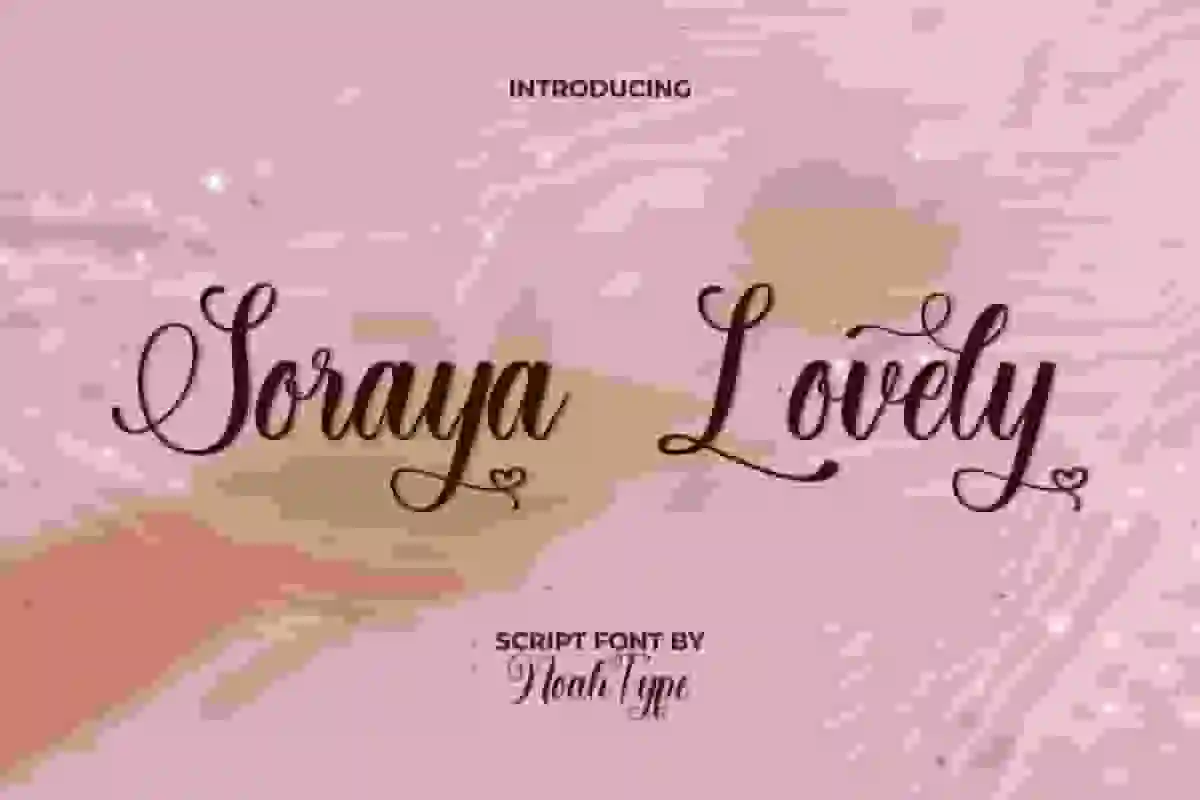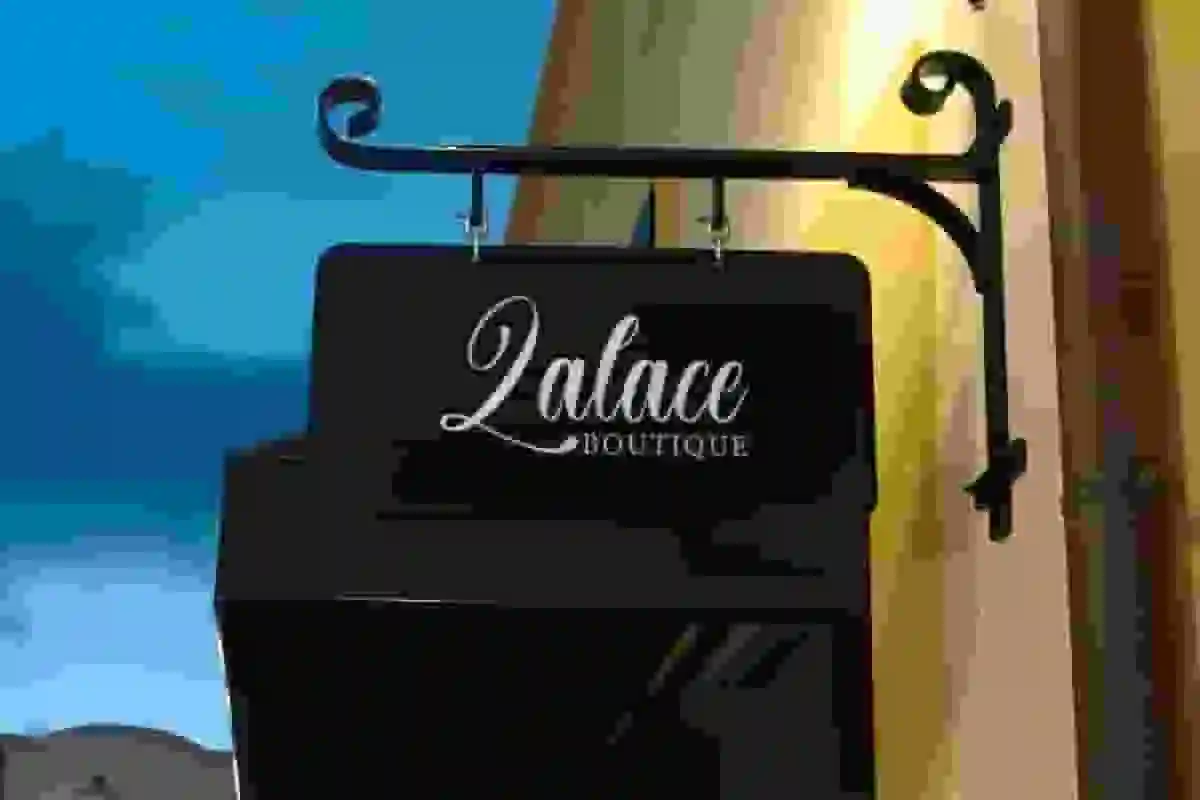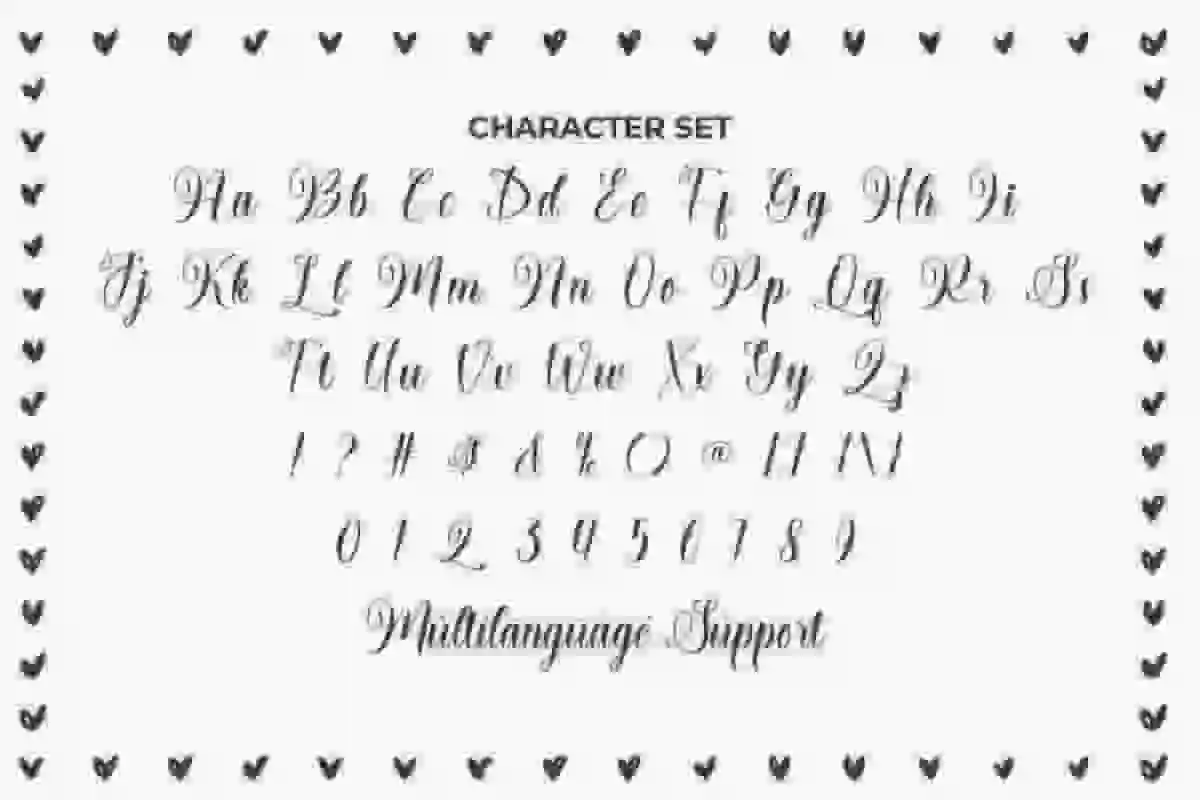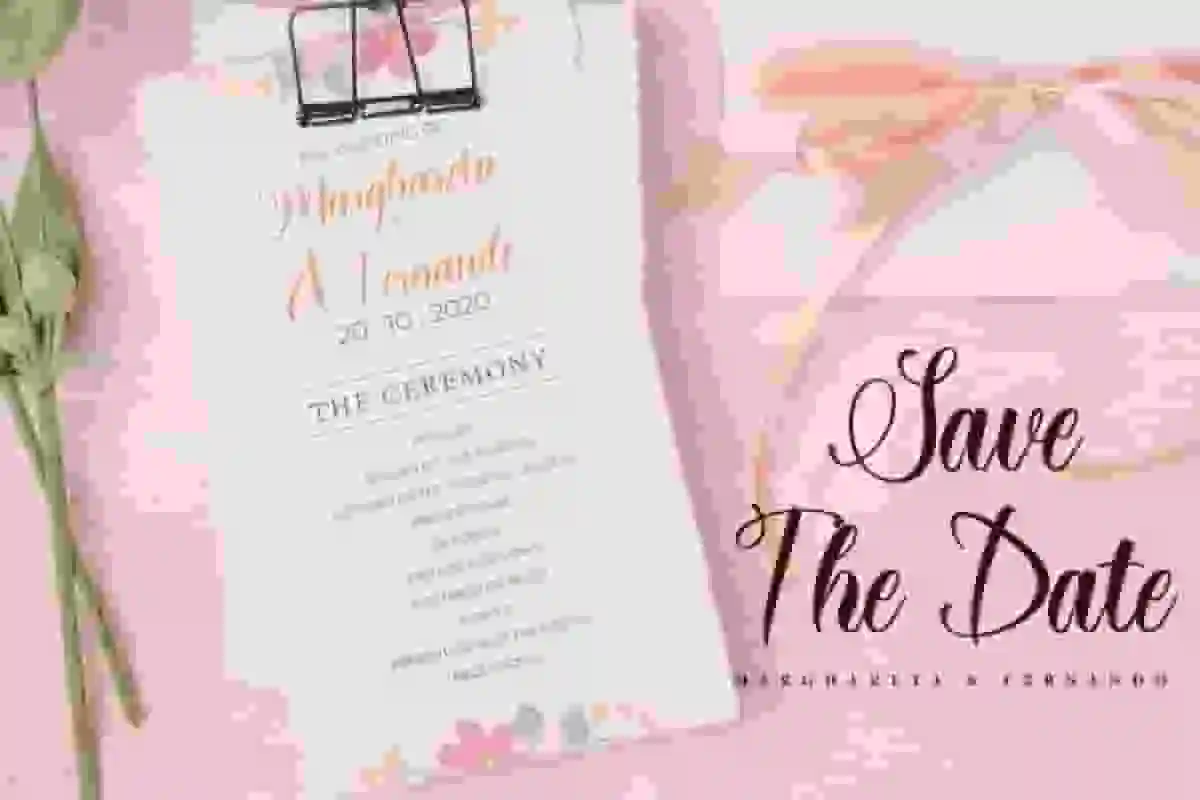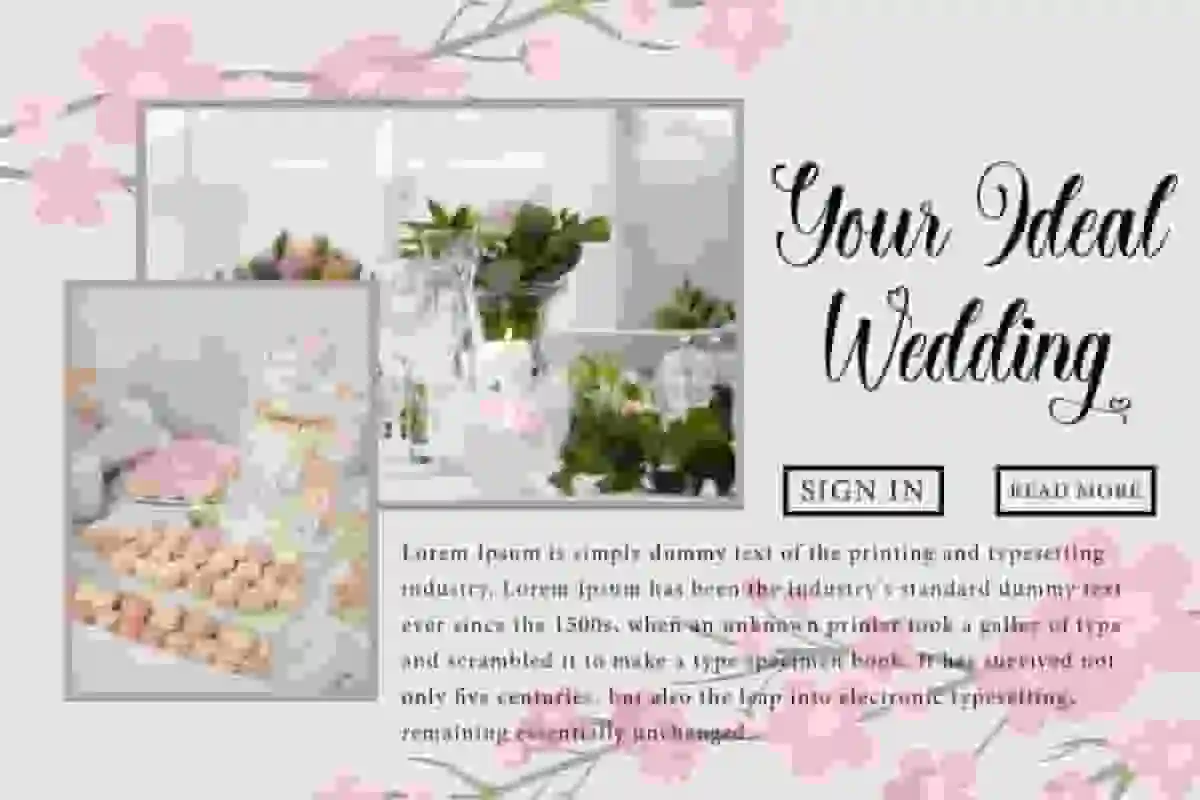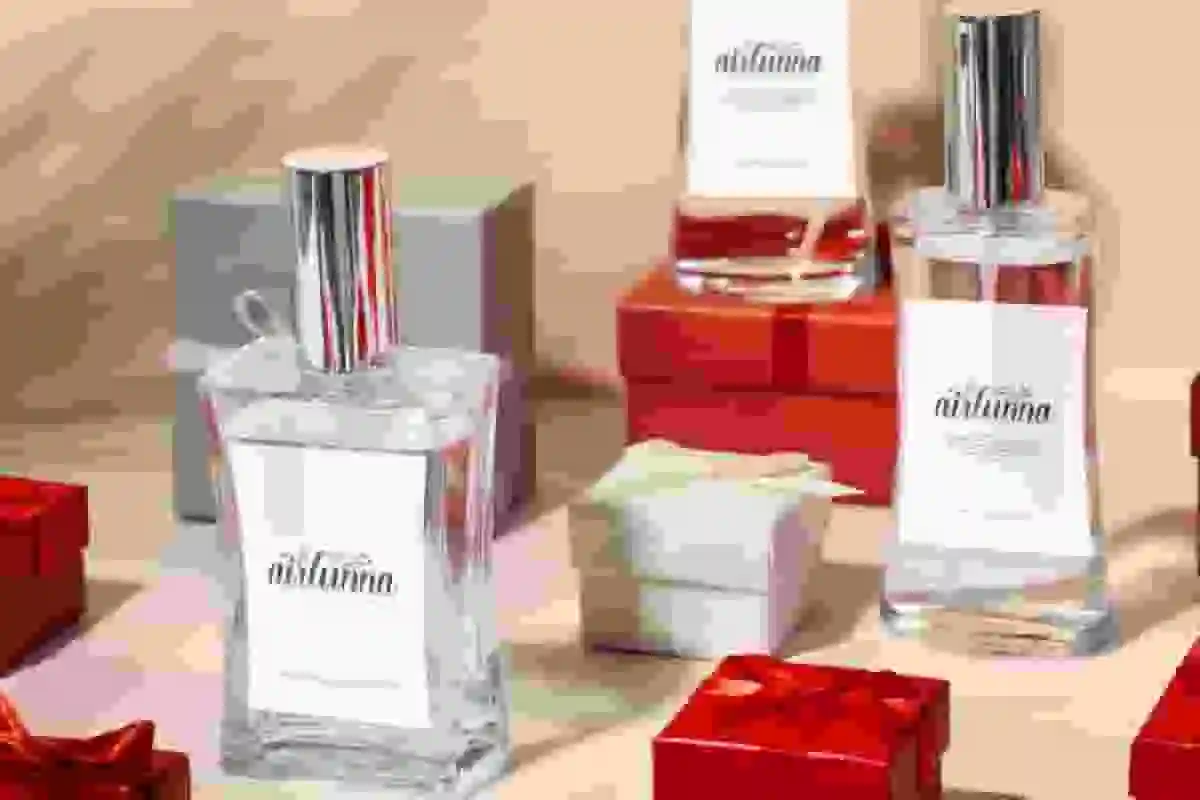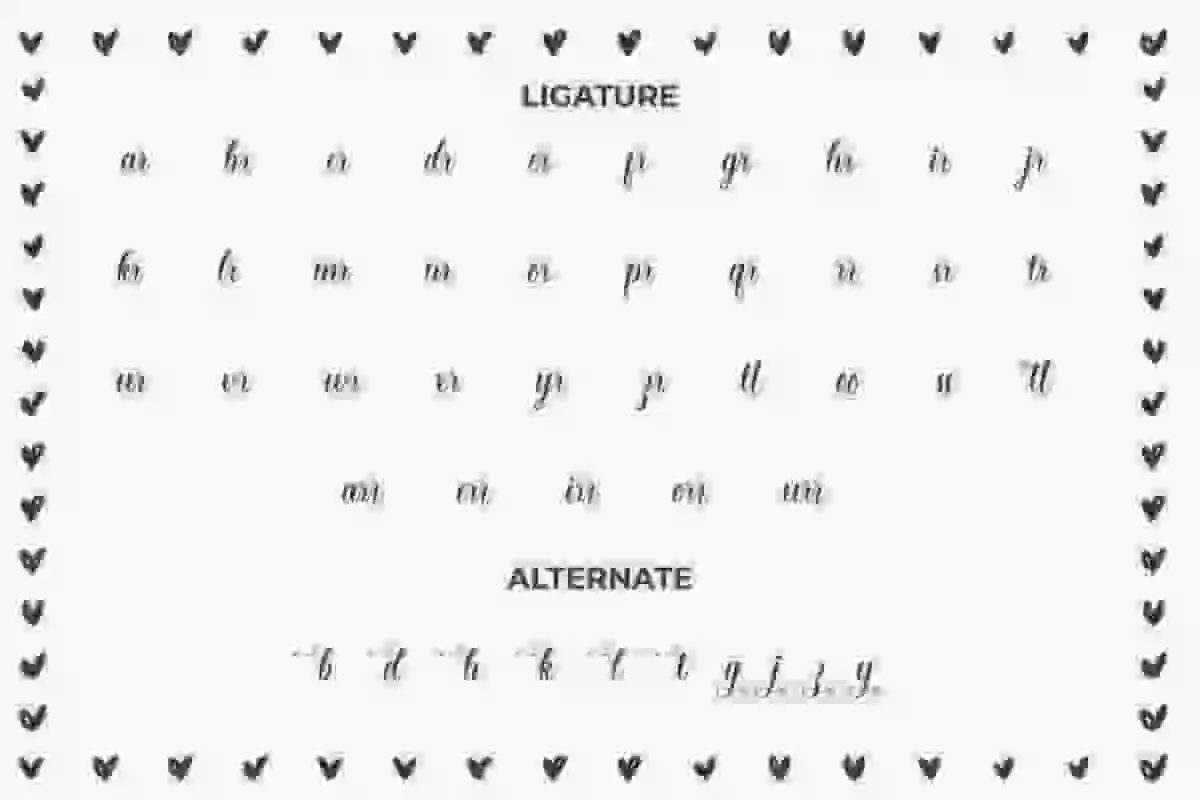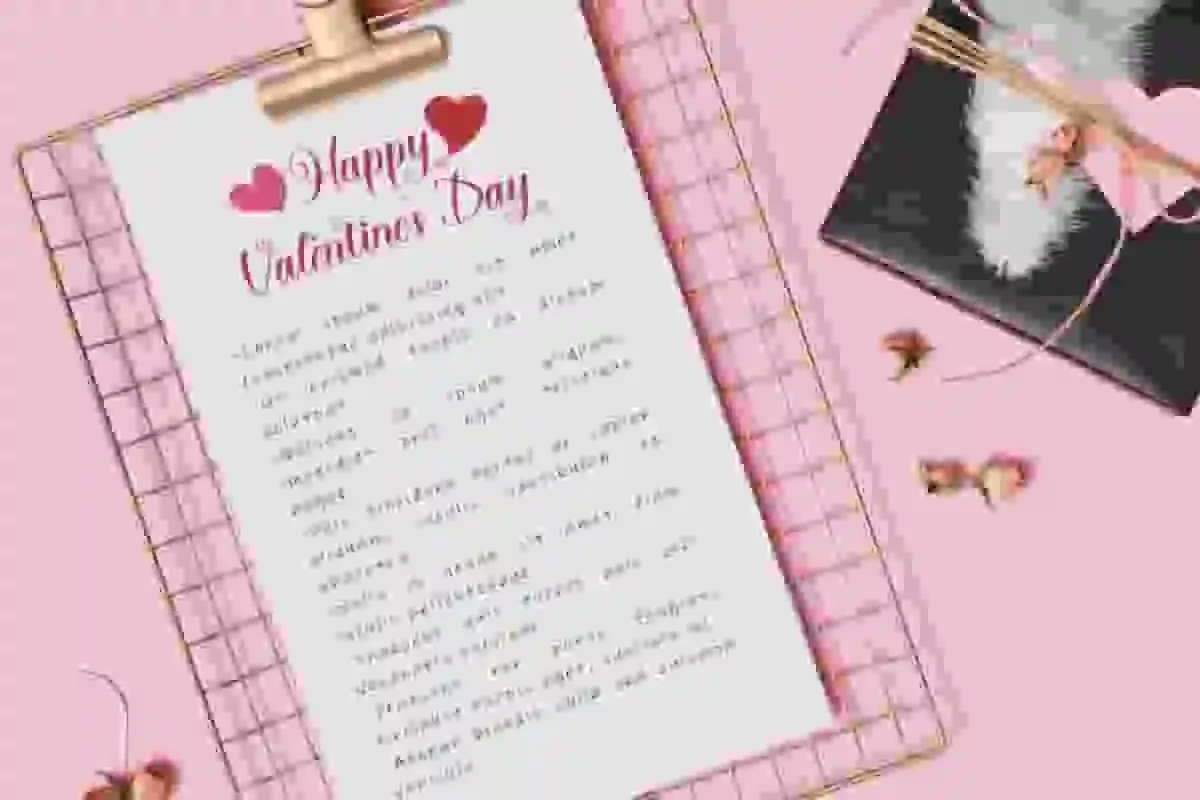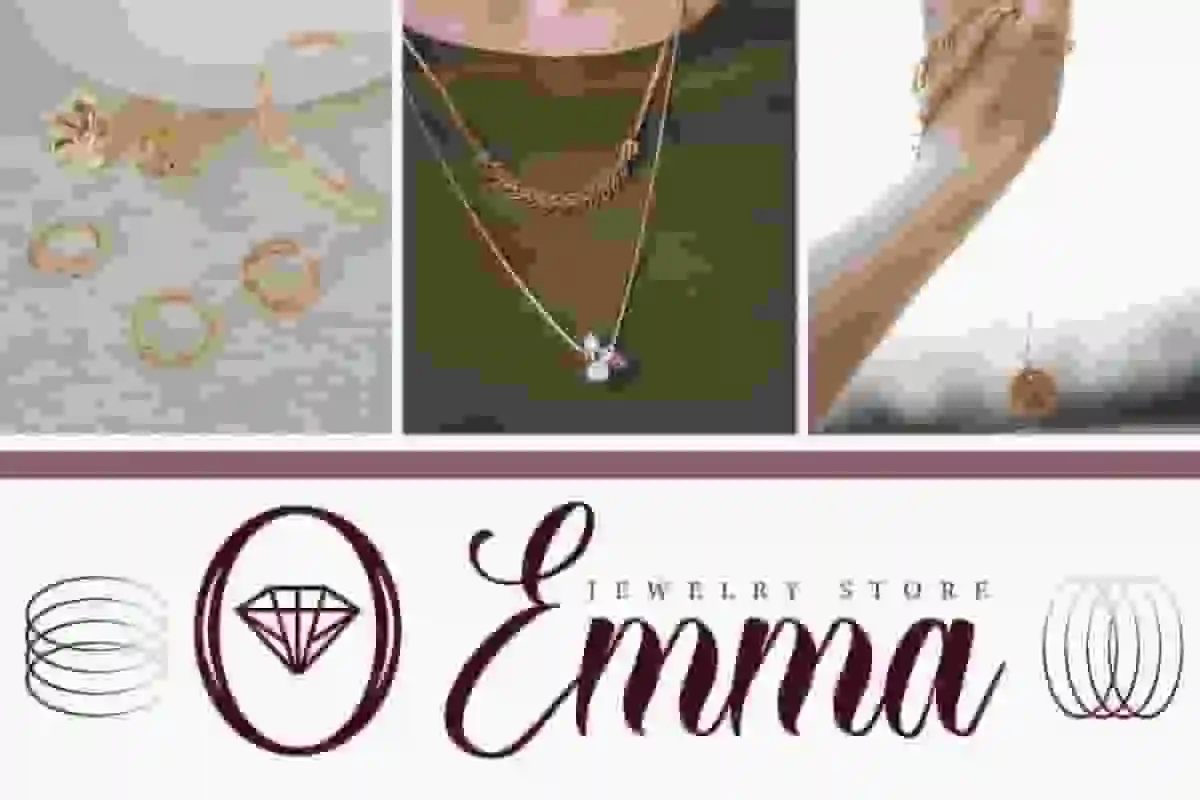
Soraya Lovely Font is a romantic calligraphy script font with lovely elegant shape, created by NoahType. This font is made with a lot of heart so that it can show perfection in every design you make, such as invitation, labels, magazine catalog, product packaging, quotes, signage, stationery, title, website, and more!
Soraya Lovely Font includes full set of Uppercase and Lowercase Basic Characters, Numerals, and Punctuation. It also contain ligature and alternate characters that will add perfection and making it suitable for many industries, such as boutique, café, cosmetic, fashion, florist, jewelry, photography, spa salon, wedding or event organizer, etc.
Soraya Lovely Romantic Font features graceful, flowing letterforms that evoke feelings of love, softness, and sophistication. Whether you’re designing wedding invitations, greeting cards, branding, logos, or social media graphics, this font will bring a romantic and charming vibe to every project.